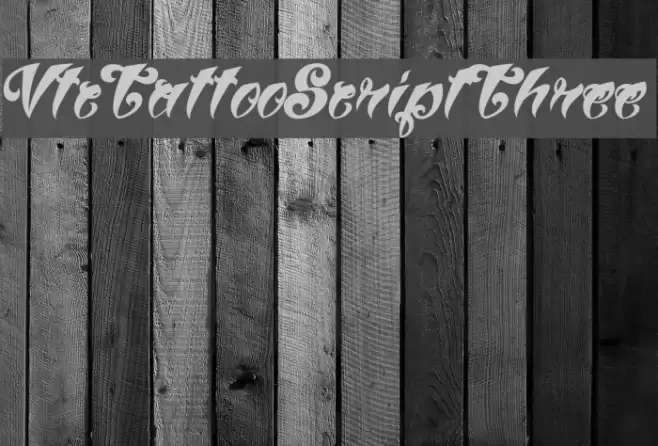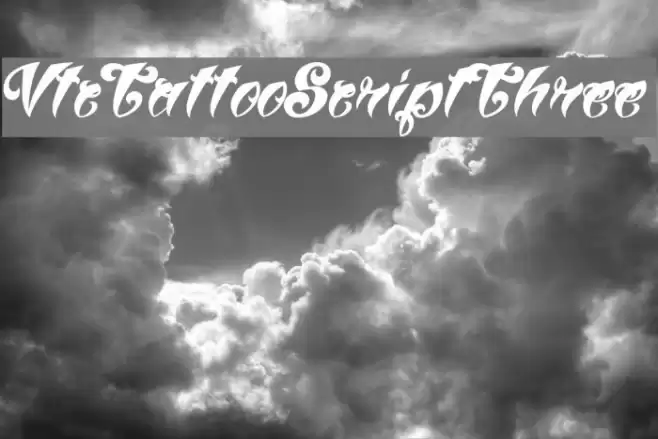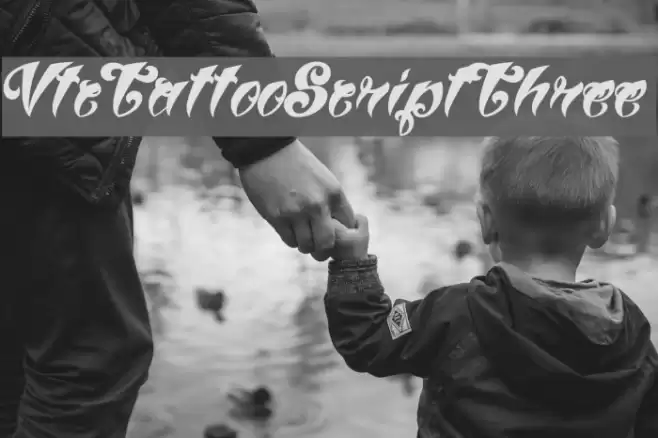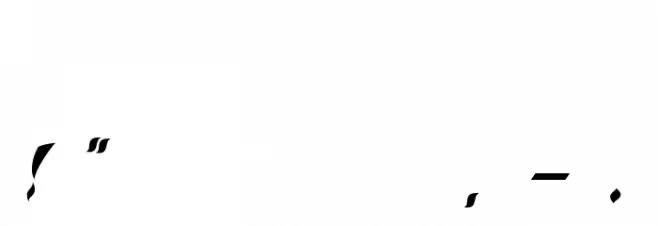
VtcTattooScriptThree Font
VtcTattooScriptThree Description
This font features an intricate and ornate design, characterized by its bold and flowing script style. Each letter is crafted with elaborate swirls and curves, giving it a distinctly decorative and artistic appearance. The uppercase letters are particularly elaborate, with exaggerated loops and flourishes that extend beyond the baseline and cap height. The lowercase letters maintain a similar style, though they are slightly more restrained in their embellishments. The font's overall aesthetic is reminiscent of tattoo art, with a strong emphasis on visual flair and dramatic presentation. The characters are tightly spaced, enhancing the cohesive and interconnected feel of the text. This font is best suited for projects that require a bold and eye-catching display, such as logos, headlines, or artistic designs.
An ornate and bold script font with intricate swirls and decorative flair from Uncategorized fonts.
- Proposed Projects: Ideal for tattoo designs, artistic logos, eye-catching headlines, and decorative posters.
- Character Spacing: Tight
- Use Case: Logos, Headlines, Artistic Designs